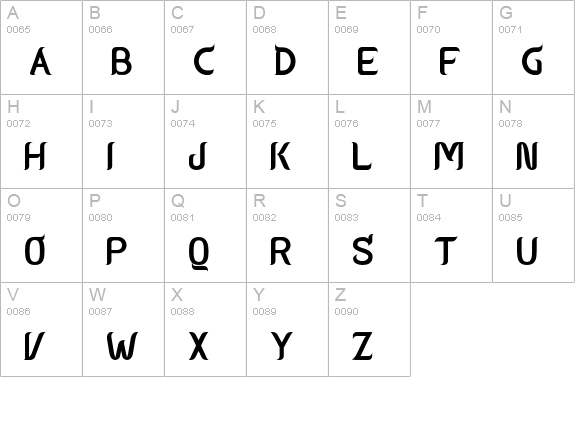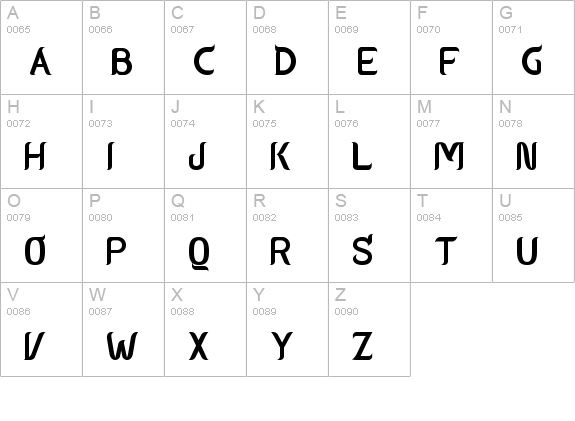
Ceria Lebaran Normal Font Details
Ceria Lebaran Normal is the standard, neutral variant in the Ceria typeface family \xE2\x80\x94 well suited to general body text, paragraphs, and standard typographic work.
Introducing Ceria Lebaran Normal font, a delightful typeface that exudes an aura of joy and celebration. This font captures the essence of festive occasions, making it the perfect choice for any design project. With its elegant curves and playful yet legible design, Ceria Lebaran Normal font adds a touch of charm to your creations. What makes Ceria Lebaran Normal font even more appealing is that it is available for free! Yes, you read that right. This incredible font can be freely downloaded at FontsMarket.com, allowing you to bring a sense of festivity to your designs without any cost involved. Whether you're designing invitations for a holiday gathering, creating greeting cards for loved ones, or crafting banners for festive events, Ceria Lebaran Normal font is the ideal choice. Its versatility and timeless appeal make it suitable for various design projects, ensuring that your creations stand out from the crowd. So why wait? Embrace the spirit of celebration with Ceria Lebaran Normal font and elevate your designs to new heights. Download this font for free at FontsMarket.com and let your creativity shine.